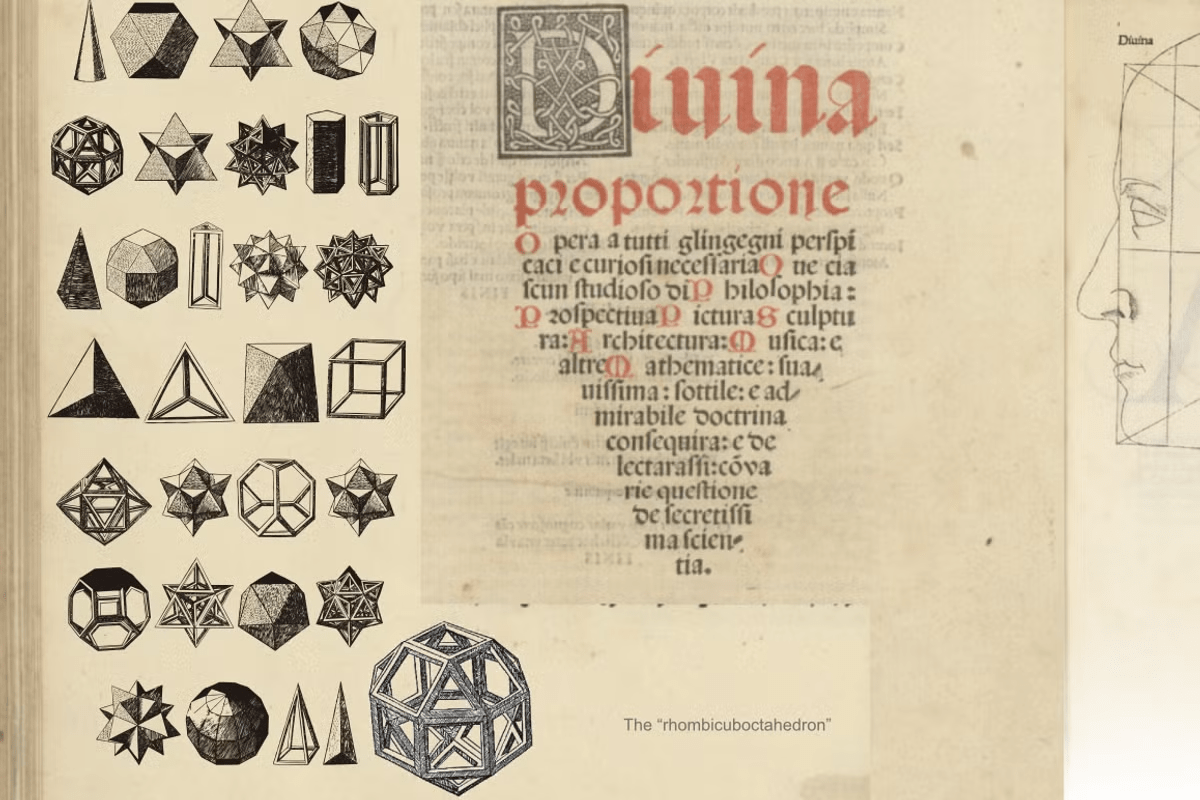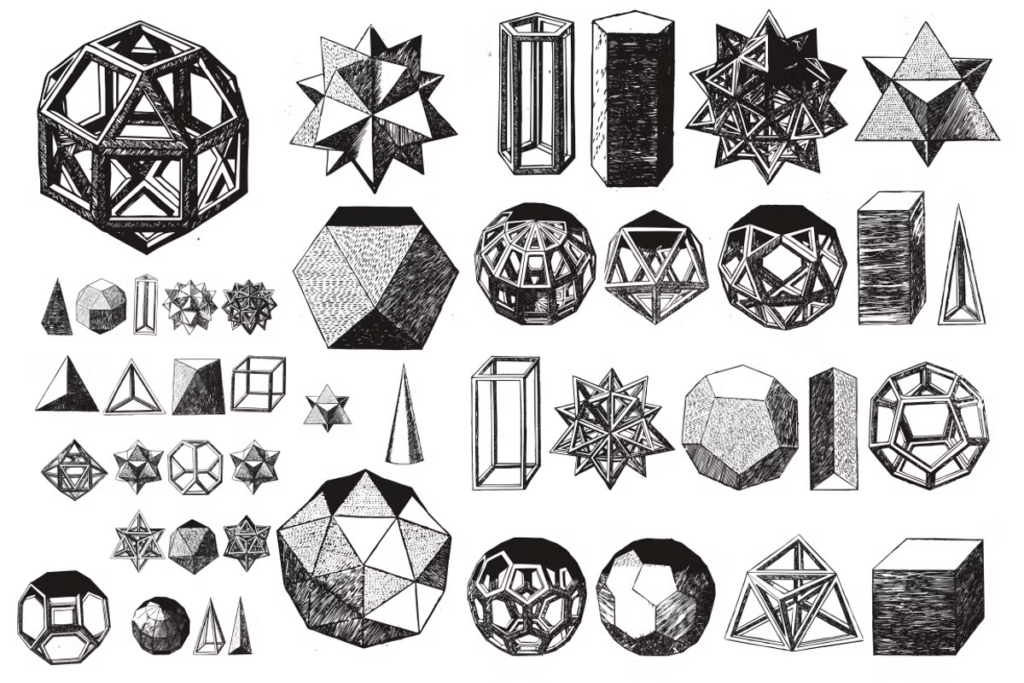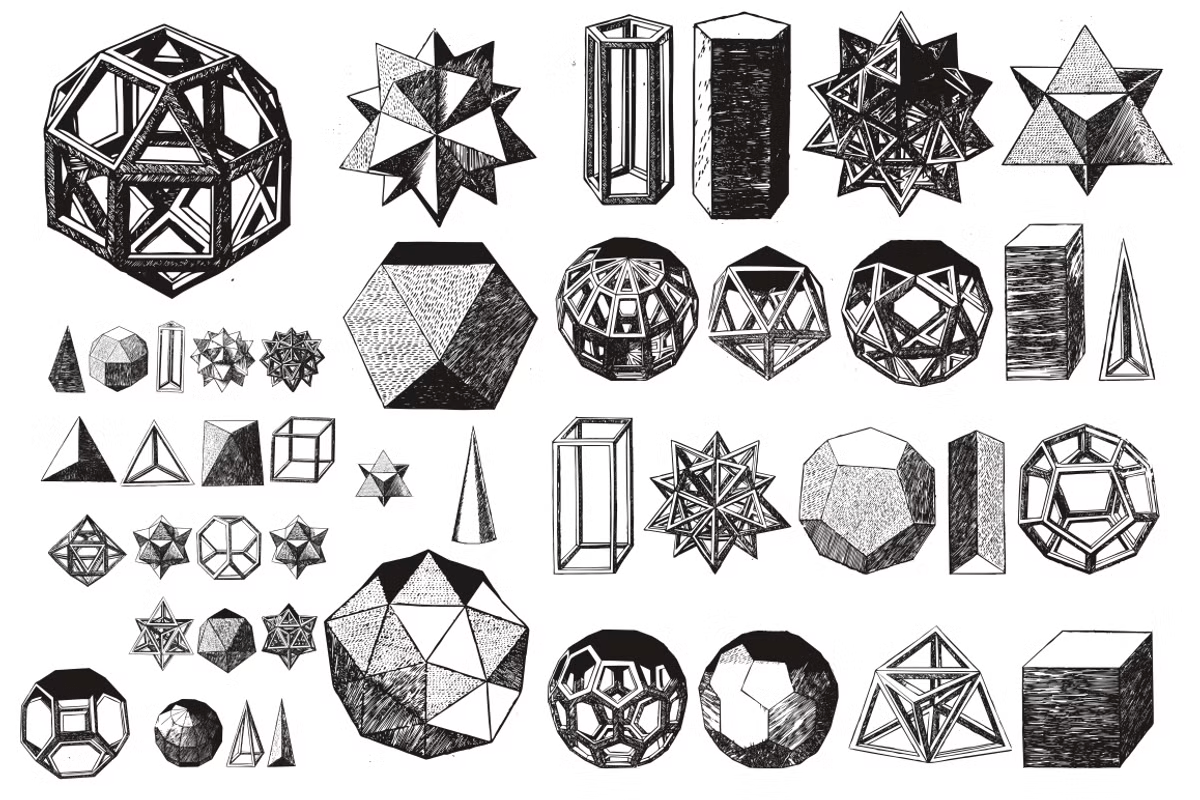
Divina Proportione
Divina Proportione is based from the original studies from Luca Pacioli. Luca Pacioli was born in 1446 or 1447 in Sansepolcro (Tuscany) where he received an abbaco education.